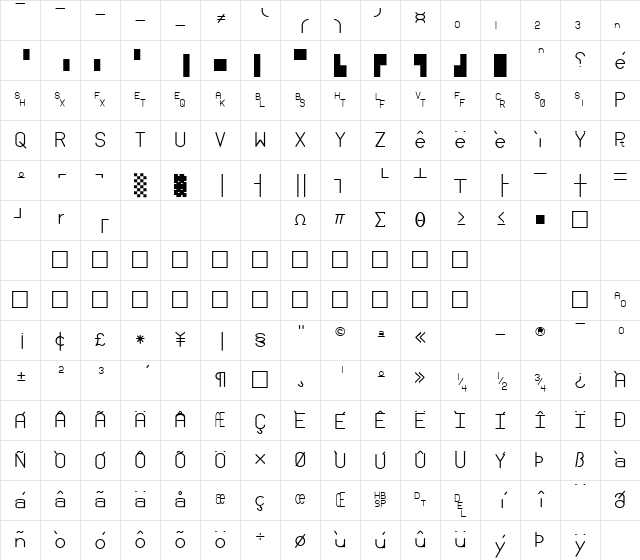
PCPlus Extra TrueType Regular Free Font
PCPlus Extra TrueType Regular
Design Context for PCPlus Extra TrueType
PCPlus Extra TrueType is a composed and adaptable typeface that performs quietly and consistently across a wide range of design contexts.